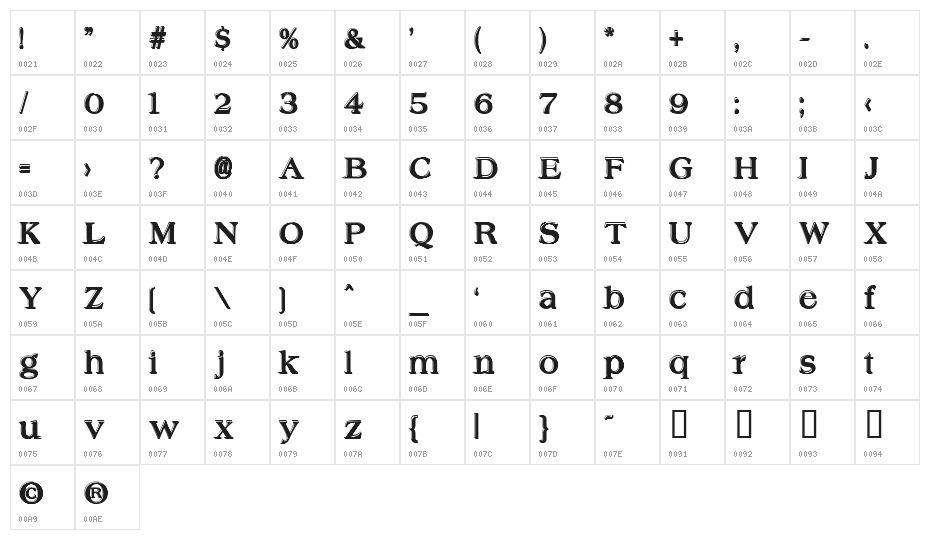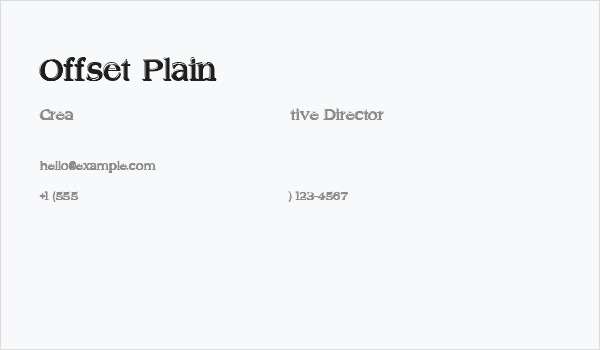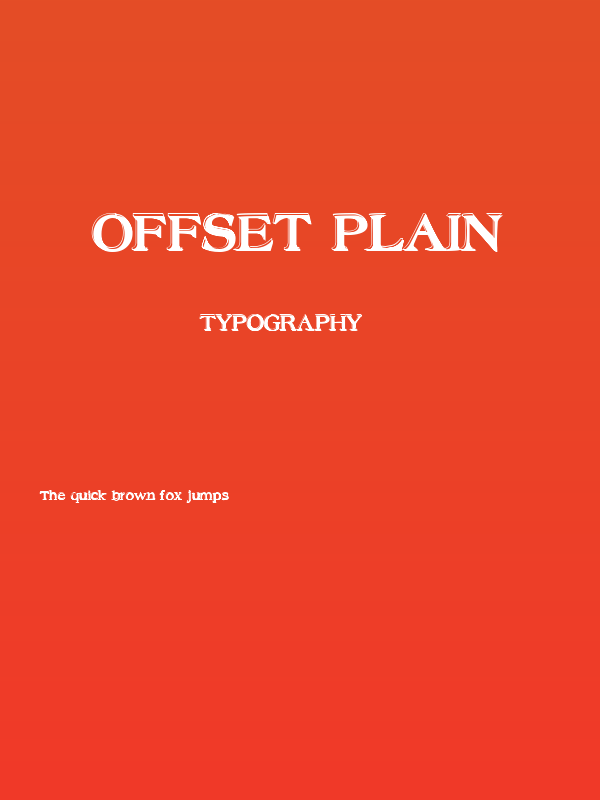
Offset Plain Font
Offset Plain Description
This font features a bold and dynamic style with a three-dimensional effect achieved through shadowing. The uppercase letters are strong and commanding, while the lowercase letters maintain a consistent weight and form. The numerals are equally bold, ensuring clarity and visibility. Special characters are designed with the same attention to detail, making them stand out. The overall appearance is impactful, making it suitable for attention-grabbing designs.
| Proposed Projects | Ideal for posters, headlines, logos, and any design requiring a bold statement. |